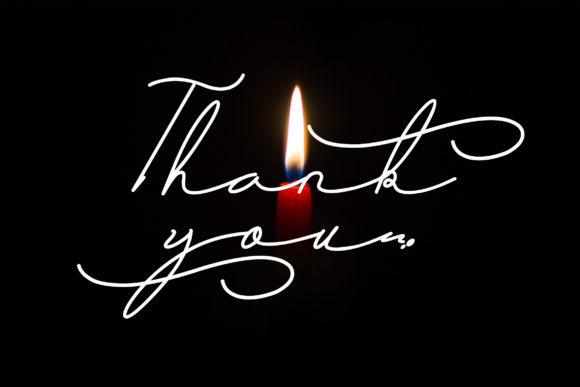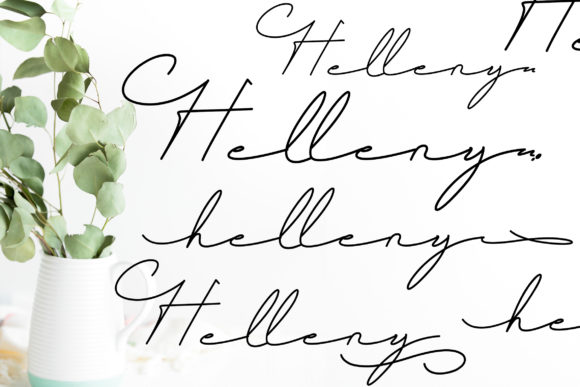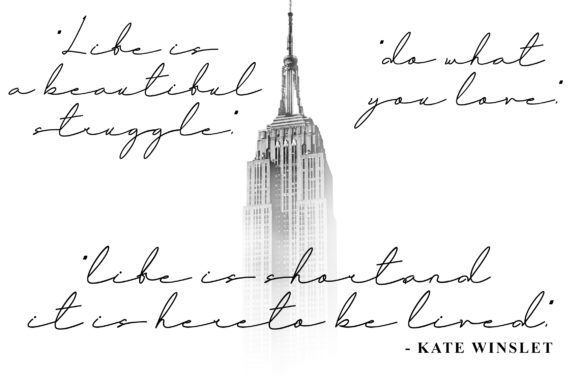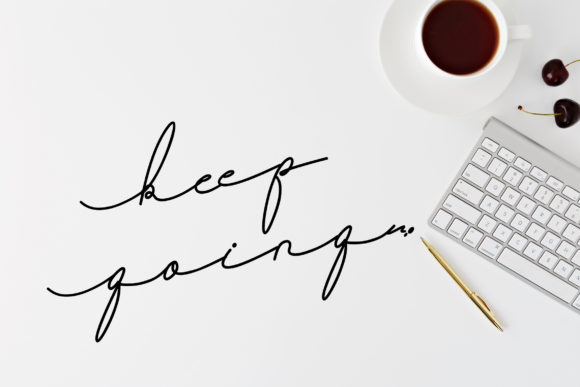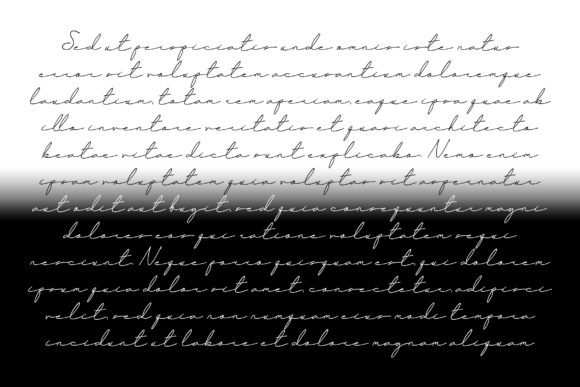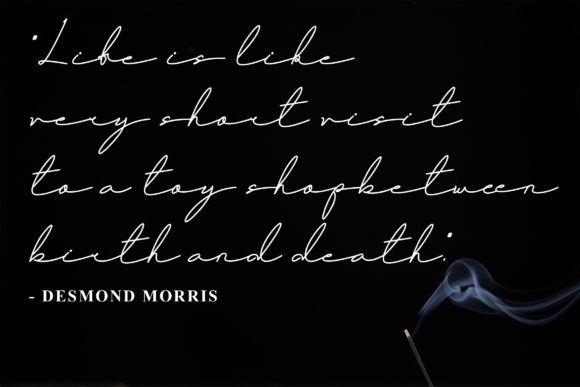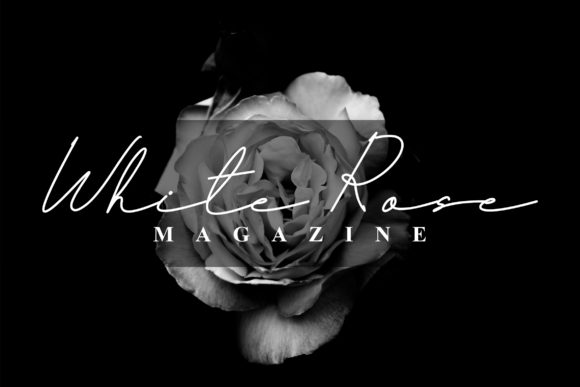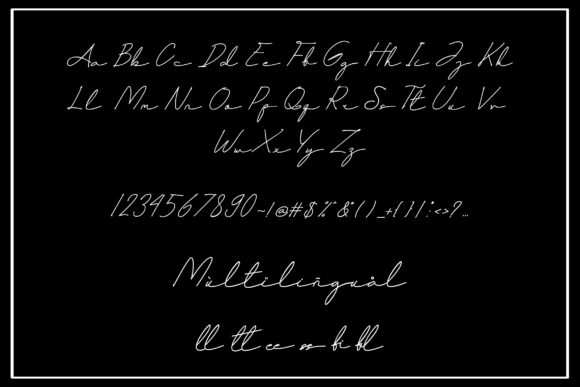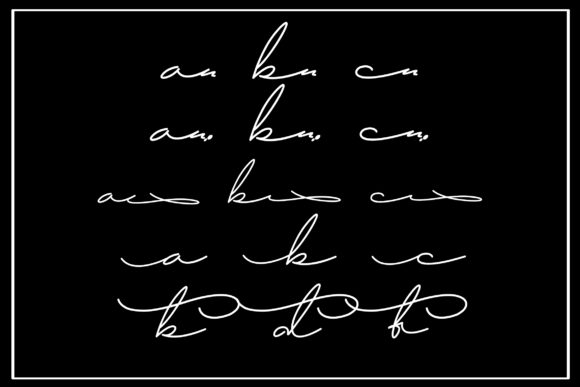
HomeScript FontsHelleny Font Script Fonts Helleny Font FacebookXPinterestWhatsApp Helleny Font Poster 2 Helleny Font Poster 3 Helleny Font Poster 4 Helleny Font Poster 5 Helleny Font Poster 6 Helleny Font Poster 7 Helleny Font Poster 8 Helleny Font Poster 9 Helleny Font Poster 10 About Helleny Font Helleny is a beautiful monoline script with a thin and playful feel. Get inspired by its modern vibe! DOWNLOAD ON CREATIVE FABRICAThis font is sold and delivered by Creative Fabrica. Font Canyon may earn a commission if you buy through this link. People also explored Heather Purple Unisex T-shirt Mockup Photo Rimo Font Buffyboats Font Sweet Kid Font Avatarock Love Berries Font Monstores Font Scolver | Slab Serif Variable Font Dolltoy Font 303 0 TagsHelleny Font Previous articleAngellita FontNext articleSlothdown Baby Font LEAVE A REPLY Cancel reply Comment: Please enter your comment! Name:* Please enter your name here Email:* You have entered an incorrect email address! Please enter your email address here Website: Save my name, email, and website in this browser for the next time I comment. Personal Use Free Ennobled Pet Personal Use Free Read more about this font Messages Personal Use Free Read more about this font Love Heart Personal Use Free Read more about this font Haris Wood Personal Use Free Read more about this font BLOG Best Fonts for YouTube Videos: Make Your Thumbnails Stand Out Best Fonts for YouTube Videos: Make Your Thumbnails Stand Out Choosing the right font can make a massive difference in how your YouTube videos perform.... Top 10 Handwritten Fonts That Elevate Your Designs Free vs Paid Fonts: Why Investing in Premium Fonts Is Worth It How to Cut Any Font on Cricut: Convert a Font to SVG (Free)